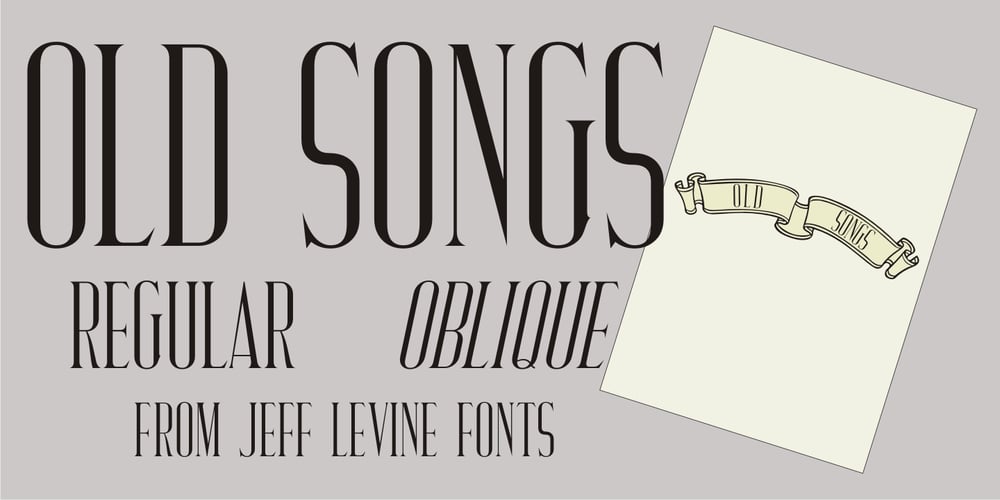
Old Songs JNL Font Family was designed by Jeff Levine and published by Jeff Levine. Old Songs JNL contains 2 styles and family package options. Hand lettering of the song title on the 1914 sheet music for “Dear Old Girl” was the working model for Old Songs JNL. A condensed Roman typeface available in both regular and oblique versions, this titling font exhibits a casual, nonconformist design that isn’t quite traditional, nor is it part of the Art Nouveau movement popular at the time.